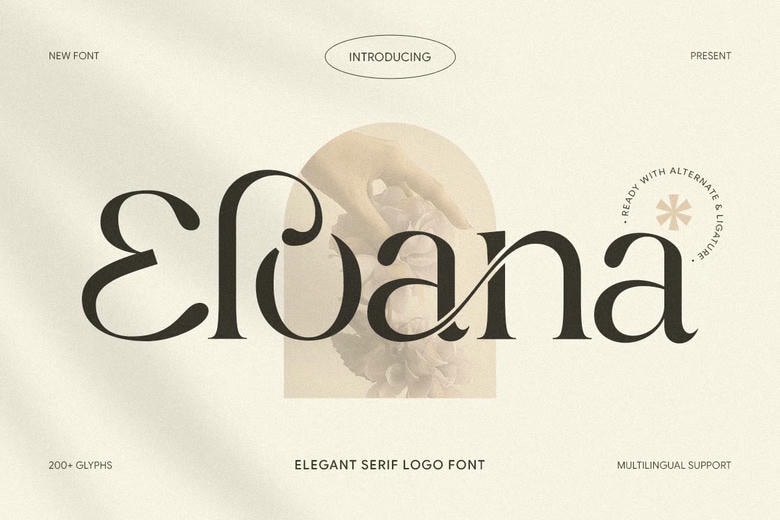
Eloana Font
Eloana is a classy serif logo font that will add a touch of sophistication, sophistication and beauty to your brand name. Eloana is ideal with graceful serif touches, proportions, and letterforms to use in logos, fashion branding, editorials, invitations, packaging, and luxury visual designs.
Combining traditional serif beauty with contemporary design, Eloana has great readability but at the same time has a sophisticated and formal personality. Its sophisticated style fits the high-end brands and beauty products, jewelry lines, fashion houses, lifestyle enterprises, and designers in need of a fashionable serif logo typeface to brand their high-end products and services.
Eloana Serif Font